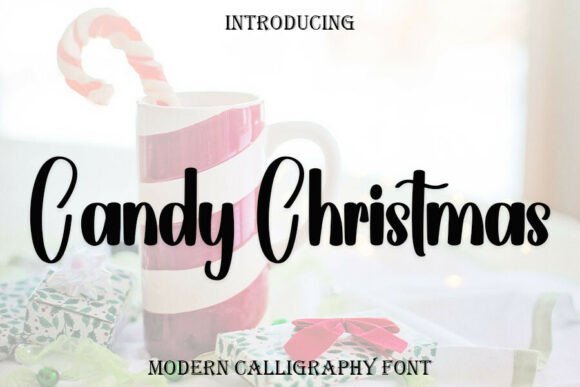
Celebrate the Magic of the Holiday Season with the Candy Christmas Font
There’s something special about the holiday season, isn’t there? The twinkling lights, the sound of sleigh bells, and the feeling of snuggling up by the fireplace with a warm cup of hot cocoa. For many of us, it’s the time of year when creativity and imagination run wild, and we find ourselves inspired to create something truly special. Whether it’s a handmade gift, a festive card, or a social media post, the holiday season is the perfect time to let our creative spirits shine.
That’s where the Candy Christmas Font comes in – a delightful and modern calligraphy font that captures the playful spirit of the holiday season. This enchanting font is the perfect tool for designers looking to add a touch of whimsy and personality to their seasonal projects. With its smooth, bouncy lines and charmingly sweet script style, the Candy Christmas Font is an indispensable asset for anyone looking to make their holiday branding stand out.
Candy Christmas Font Key Features
- Font Family: A unique, playful font designed specifically for the holiday season.
- Characters and Glyphs: Includes a wide range of festive characters, including ornaments, snowflakes, and holiday-themed symbols.
Candy Christmas Font Review
I recently had the chance to work with the Candy Christmas Font, and I must say, it’s a fun and playful addition to any design project. ✨ One thing I love about this font is its versatility – it’s perfect for creating festive holiday designs, like Christmas cards, gift tags, and social media graphics. The font’s cursive script and bold lines give it a whimsical feel that’s sure to put a smile on your audience’s faces.
- ✨ The font’s bold and colorful design makes it perfect for creating eye-catching holiday designs.
However, I do have a few reservations about the Candy Christmas Font. ⚠️ The font’s limited character set might be a concern for designers who need to create complex text-based designs. Additionally, the font’s bold design might not be suitable for projects where a more subtle approach is needed.
Overall, I think the Candy Christmas Font is a great addition to any designer’s toolkit. While it has some limitations, its playful design and versatility make it a great choice for creating festive holiday designs. Just be sure to use it judiciously and consider the needs of your project before making a final decision.
The Candy Christmas Font is ideal for:
- Creating festive holiday cards and invitations.
- Designing Christmas-themed social media graphics and posters.
- Adding a touch of whimsy to your holiday marketing materials.
Carolyna Pro is a modern, elegant font with a touch of sophistication. It’s ideal for fashion brands, luxury goods, and high-end promotional materials. Compared to Candy Christmas Font, Carolyna Pro has a more polished and refined look, making it suitable for premium brands.